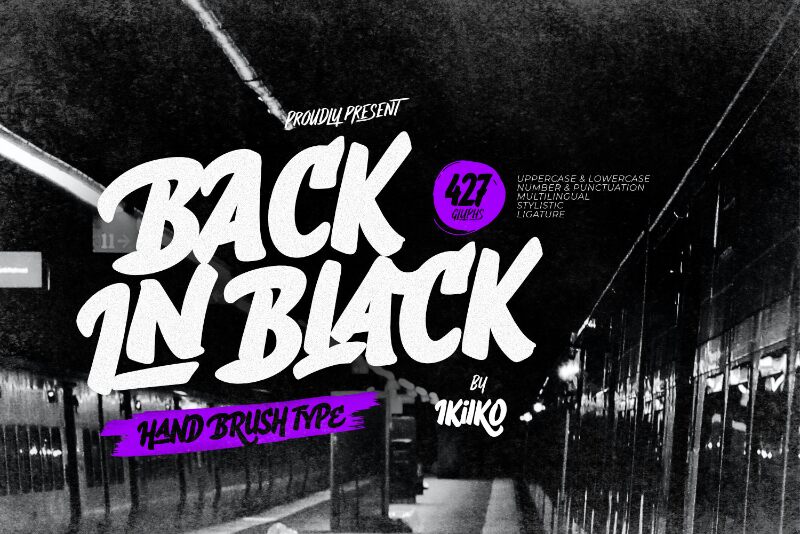
Back In Black font by Ikiiko Type is a free bold brush font. It solves the classic brush-script dilemma: how to get big, inky energy without losing clarity. Thick, glossy strokes with rounded edges and confident slant create a steady rhythm, so words lock up cleanly and read fast, even when stacked or arced. The texture feels hand-painted yet disciplined—no messy splatters, just smooth swagger.
Using Back In Black, headlines jump off the page with punch and warmth. This free font shines on streetwear logos, food packaging, event posters, menu boards, YouTube thumbnails, album covers, and sticker sheets. Pair it with a crisp condensed sans to handle details; set Back In Black large with tight tracking and roomy line spacing to keep its bounce refined.